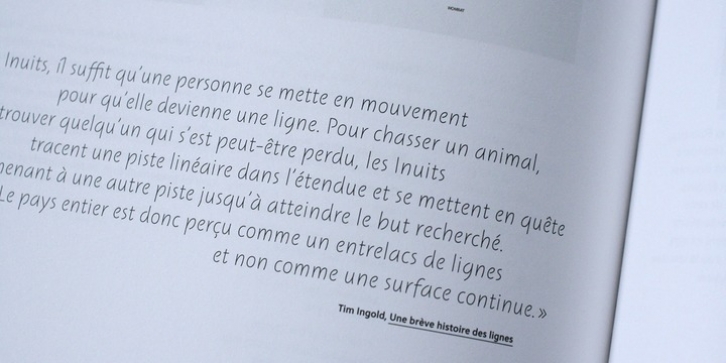
Instant was published by Jérôme Knebusch. Instant contains 5 styles and family package options.
Instant is a type family going from from thin, informal, quick handwritten letters to stable, black typographic shapes. Each of the five styles correspond to a specific stroke speed and weight : Vivid, Quick, Regular, Slow, Heavy. Started as research project in 2005 at National Institute for Typographic Research, France, hommage to the poet, painter and writer Henri Michaux (1899–1984), it questions type family consistency and the relation and usage of roman, italic and bold faces.
The fonts contain an extended latin glyph set covering many languages, advanced OpenType features, small capitals, several figure ranges (lining, old style, tabular and proportional), ponctuation for capitals, alternates & ligatures.
Instant was developed with Matthieu Cortat, Nonpareille, Lyon, and released by BAT Foundry, Paris in 2012. It was selected favorite typefaces by Typographica in 2012 and best ten fonts the same year by Fontwerk.
Images: «Une brève histoire des lignes» [Lines, a brief history], Centre Pompidou-Metz, 2013.